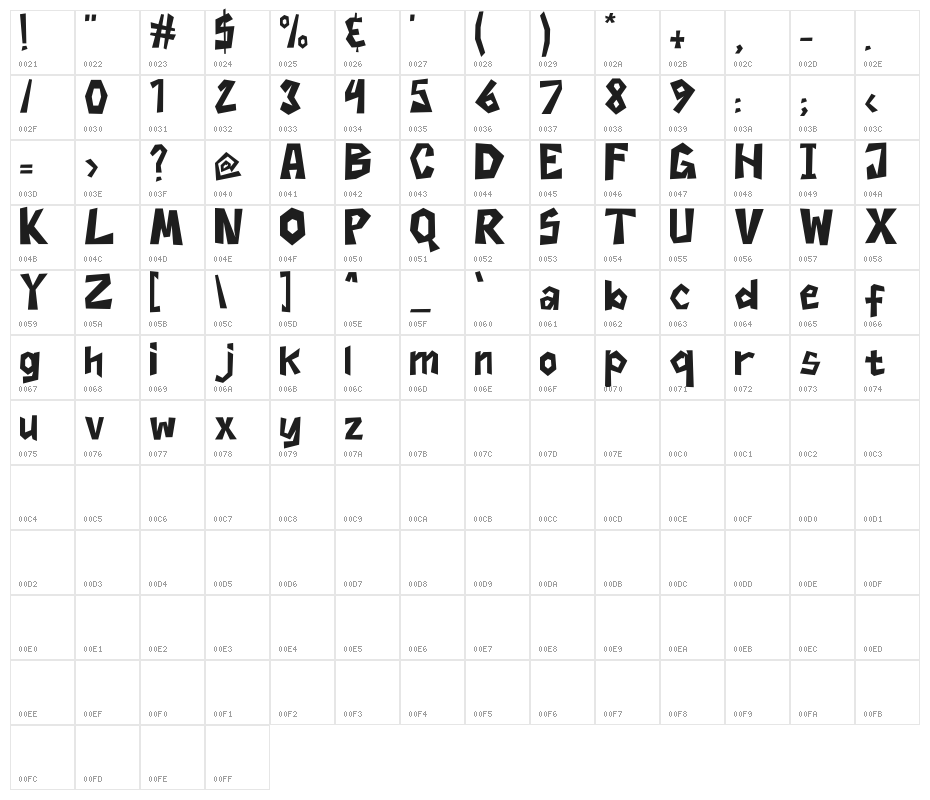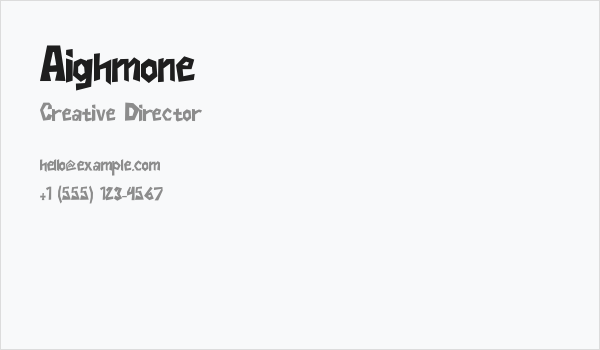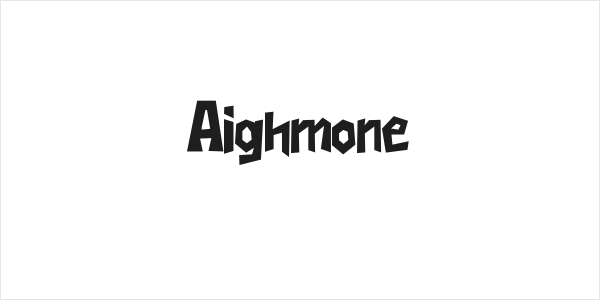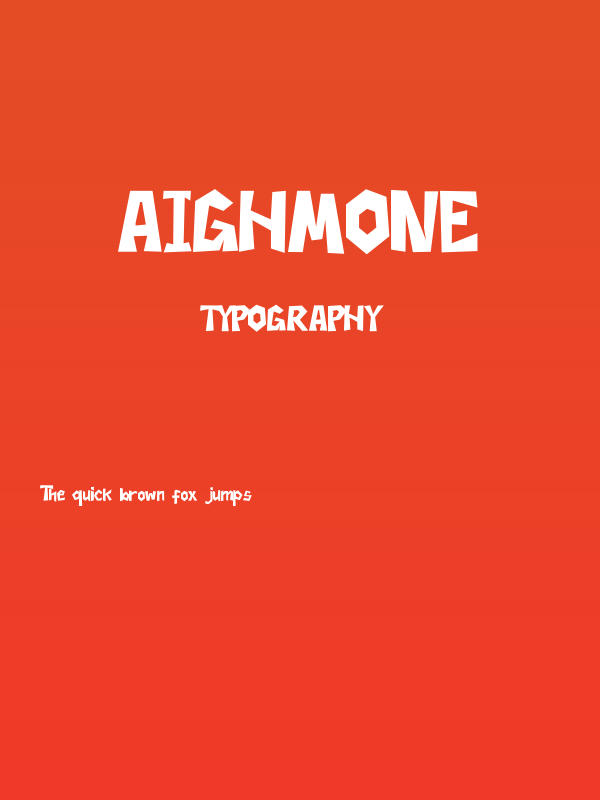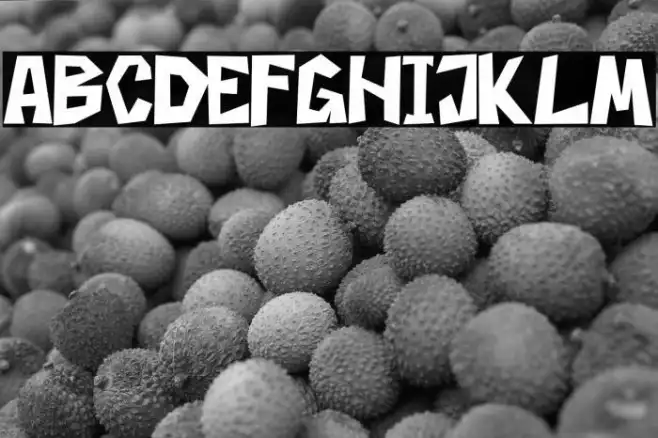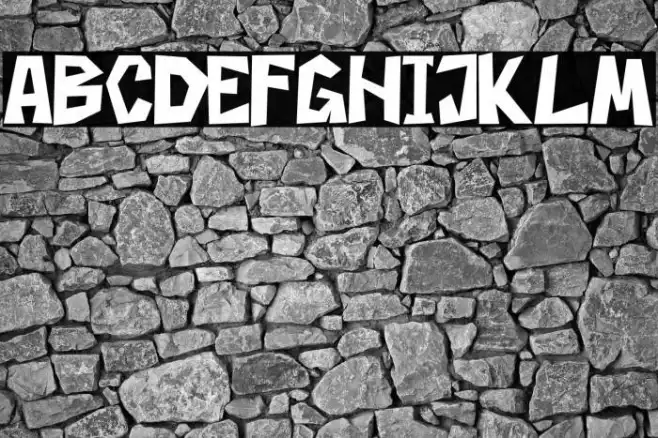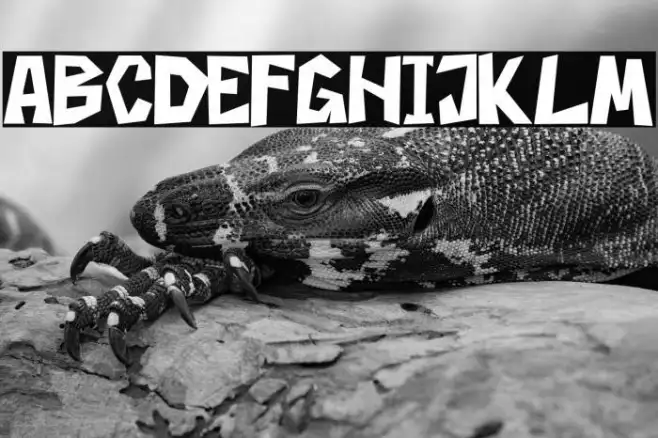
Aighmone Font
Aighmone Description
This font features a bold, angular design with a distinctly modern and edgy appearance. The characters are crafted with sharp, irregular edges, giving them a dynamic and energetic feel. The uppercase and lowercase letters maintain a consistent style, with exaggerated angles and a slightly condensed form. Numbers and special characters follow the same design principles, ensuring a cohesive look across all glyphs. The font's unique style makes it stand out, suitable for projects that require a strong visual impact.
| Proposed Projects | Ideal for posters, album covers, video game graphics, and branding that requires a bold statement. |